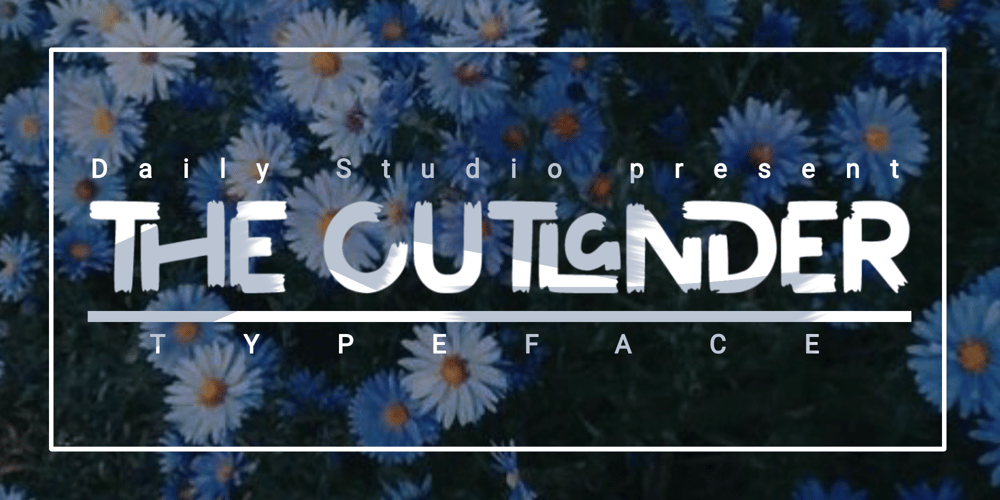
The Outlander Font Family was designed by Zaizafun Hanifah and published by Daily Studio. The Outlander contains 1 styles and family package options. The Outlander – Design by Daily StudioThis ttypeface can make your design look strong. Simple accessible on any of yor projects. Is great for headers, logos, and quotes. Comes with a full uppercase, lowercase, punctuation, and standard multilingual support. With 255 glyphs and in OTF format.